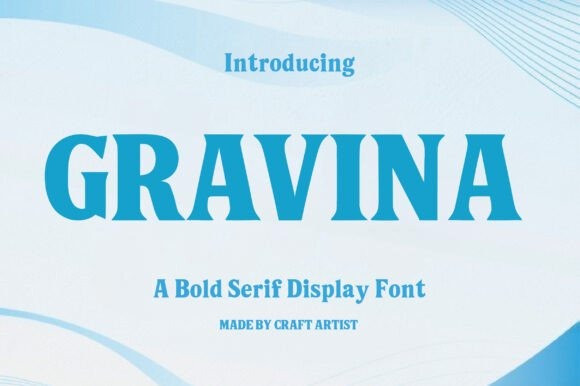
Gravina Font
Gravina Font a powerhouse of a font that brings together classic elegance and modern confidence.
This Bold Serif Display Font commands attention with its substantial weight, clear structure, and refined serifs. Gravina’s letterforms feature a high contrast between thick and thin strokes, giving it a sophisticated and established look that is both timeless and fresh, making any headline or title feel important and authoritative.
Gravina is the perfect typeface for projects that require a sophisticated, yet impactful presence. It excels in branding for luxury goods, editorial headlines in magazines, formal advertising campaigns, corporate identity, and packaging for high-end products. Its clear, imposing structure makes it highly readable even at large sizes, ensuring your message is conveyed with strength and class.
Elevate your design with the strong, classic appeal of Gravina. This font is the essential choice for designers who want to combine traditional refinement with a distinctly bold, contemporary display style.